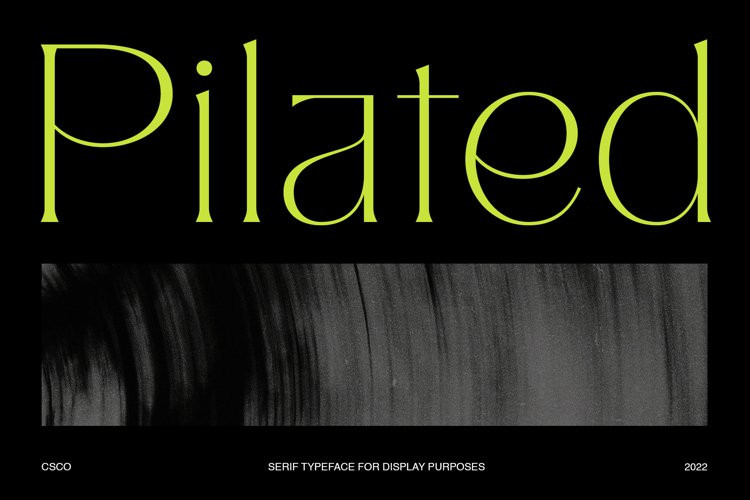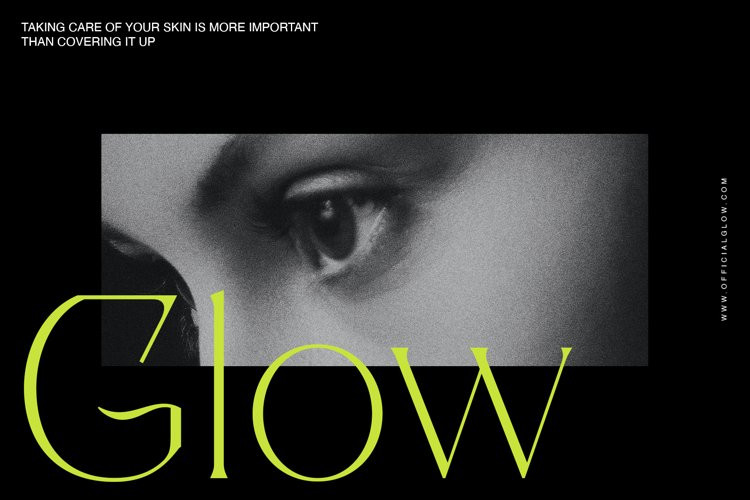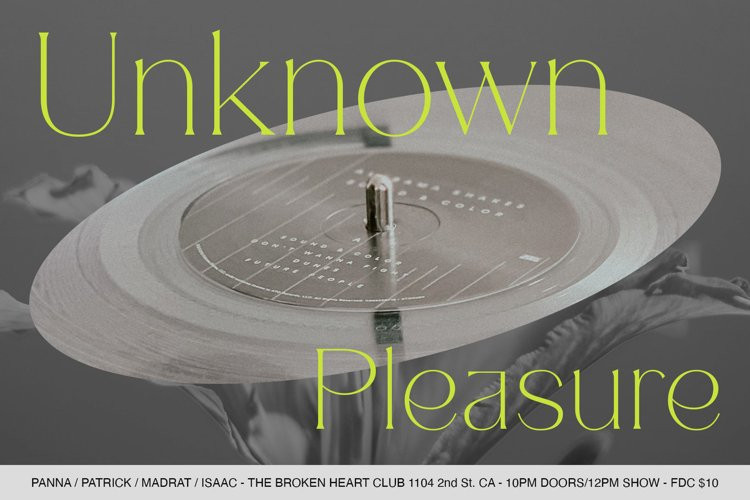
Pilated Font
Pilated FontPilated features thin stroke and low-contrast modulation that make it modern and elegant. It can be used to create almost all types of design projects like print materials. Just use your imagination and your project will become more alive and look great than ever with this typeface.